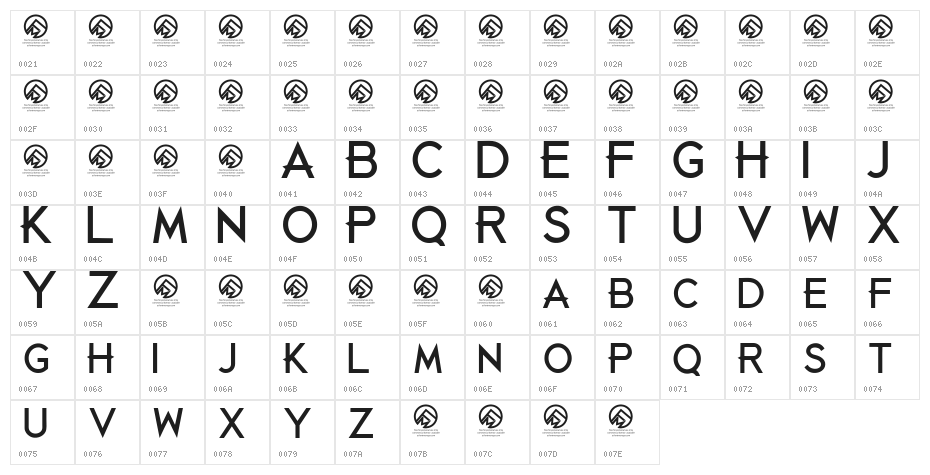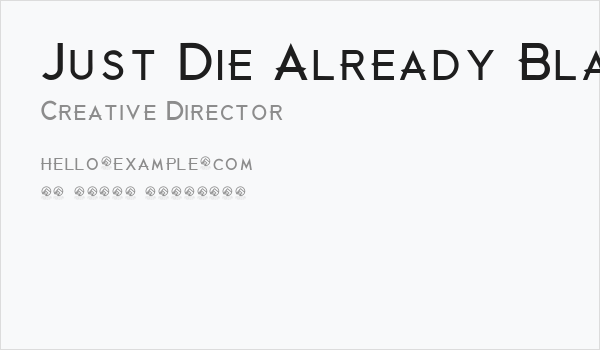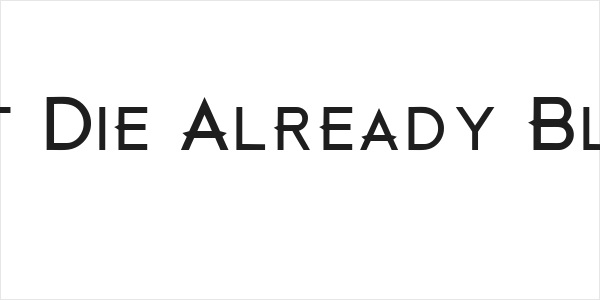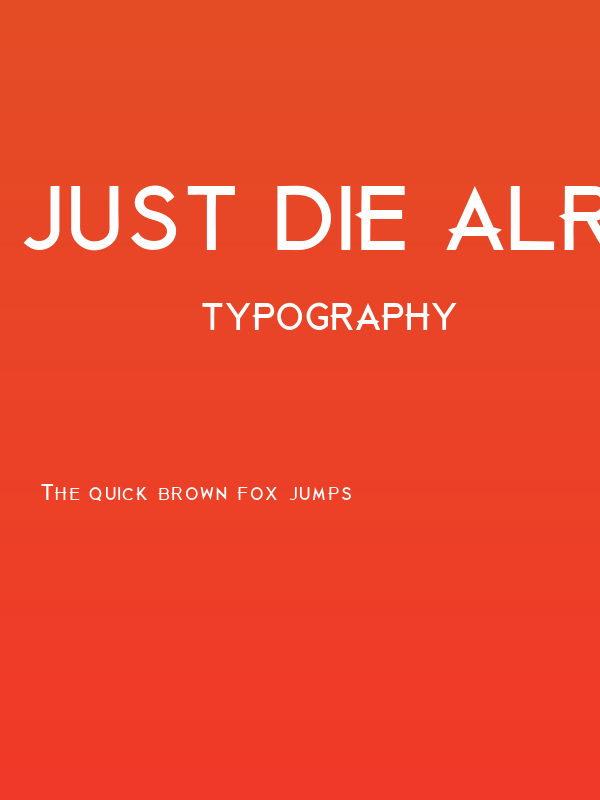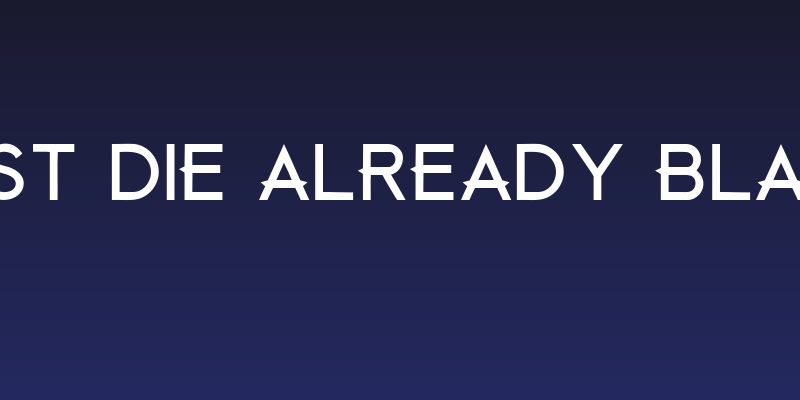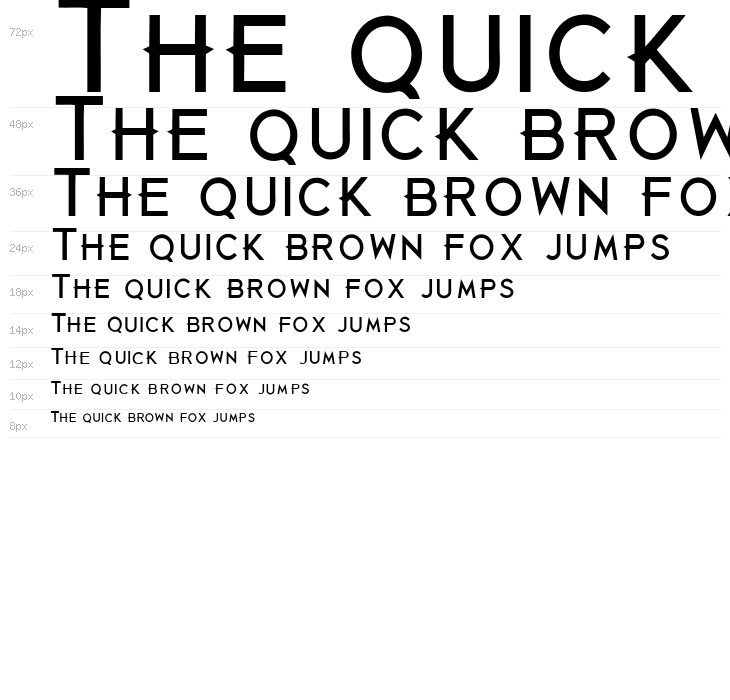
Just Die Already Black Font
Just Die Already Black Description
This font features a bold and modern sans-serif style with clean, geometric lines. The characters are uniform in width, providing a balanced and structured appearance. The uppercase letters are prominent and assertive, making them ideal for headlines and attention-grabbing text. The font maintains a consistent stroke width throughout, contributing to its sleek and contemporary look. It is versatile and can be used in various design contexts, from digital to print media. The simplicity and clarity of the characters ensure readability, even at smaller sizes.
Use CaseHeadlines, Logos, Branding
Proposed ProjectsIdeal for branding, advertising, posters, and digital media where a modern and clean look is desired.